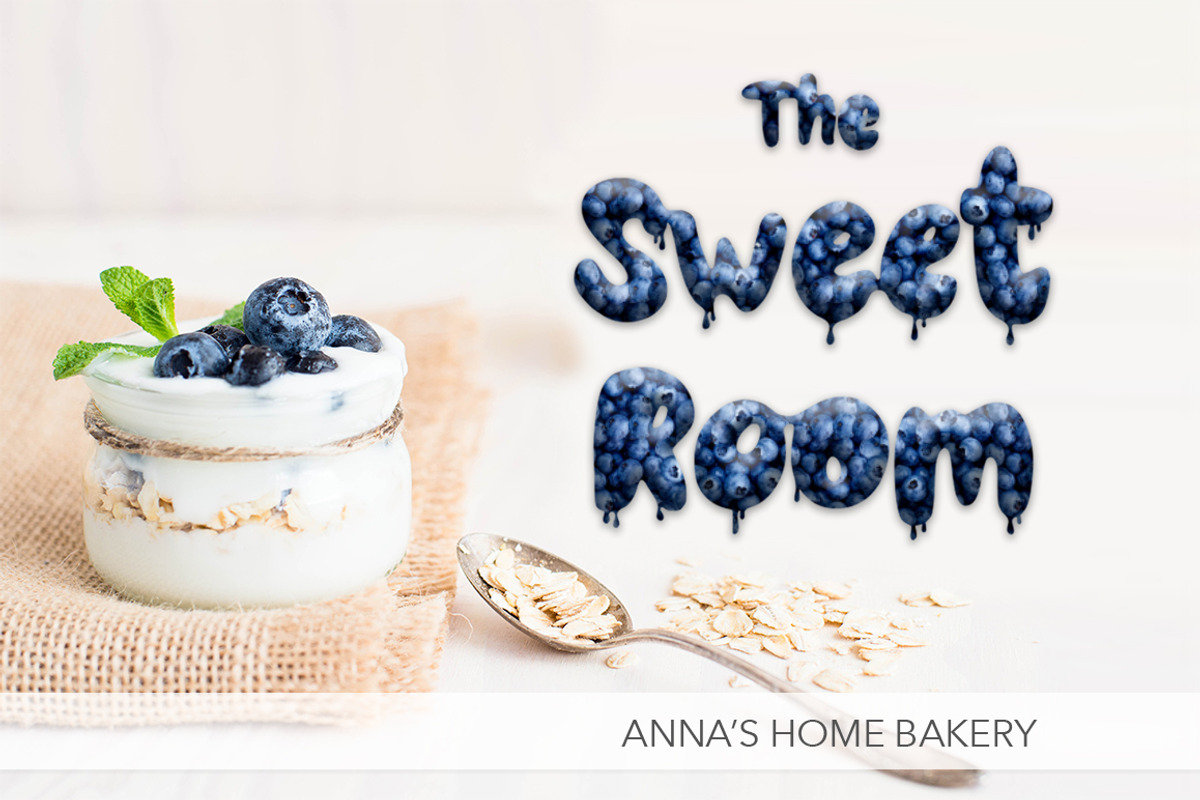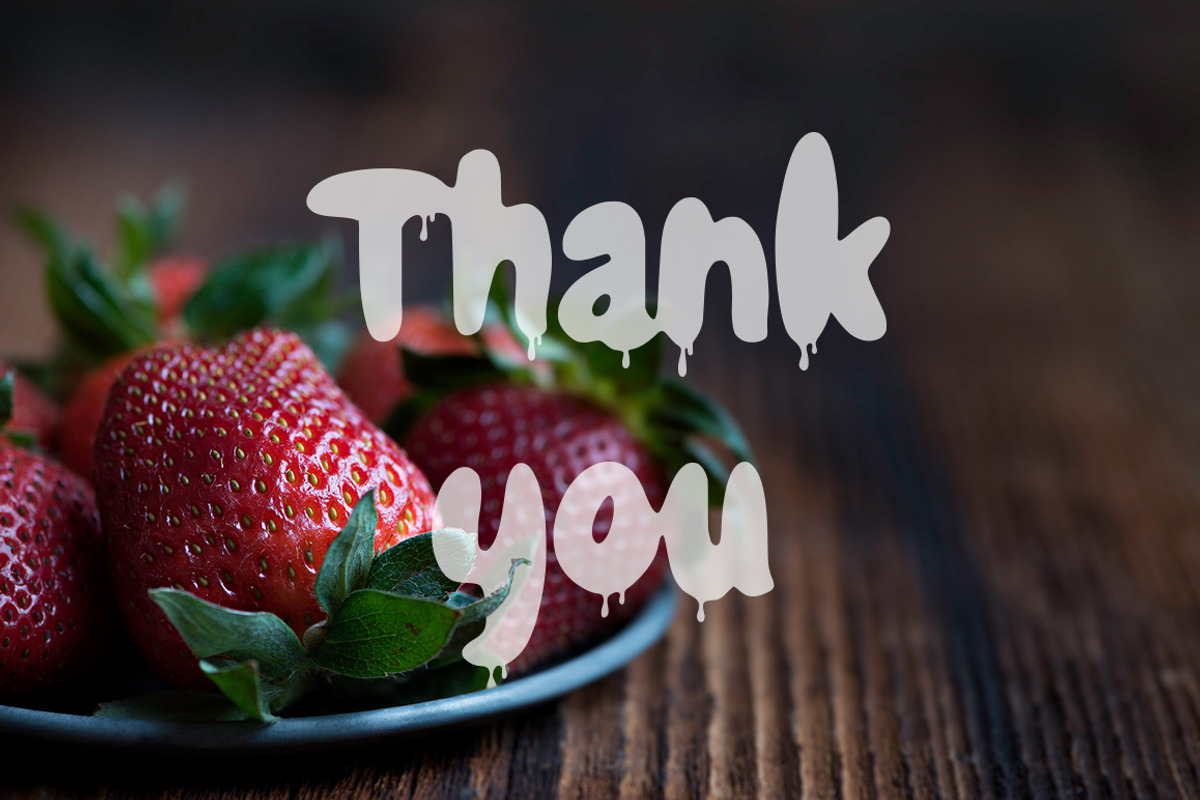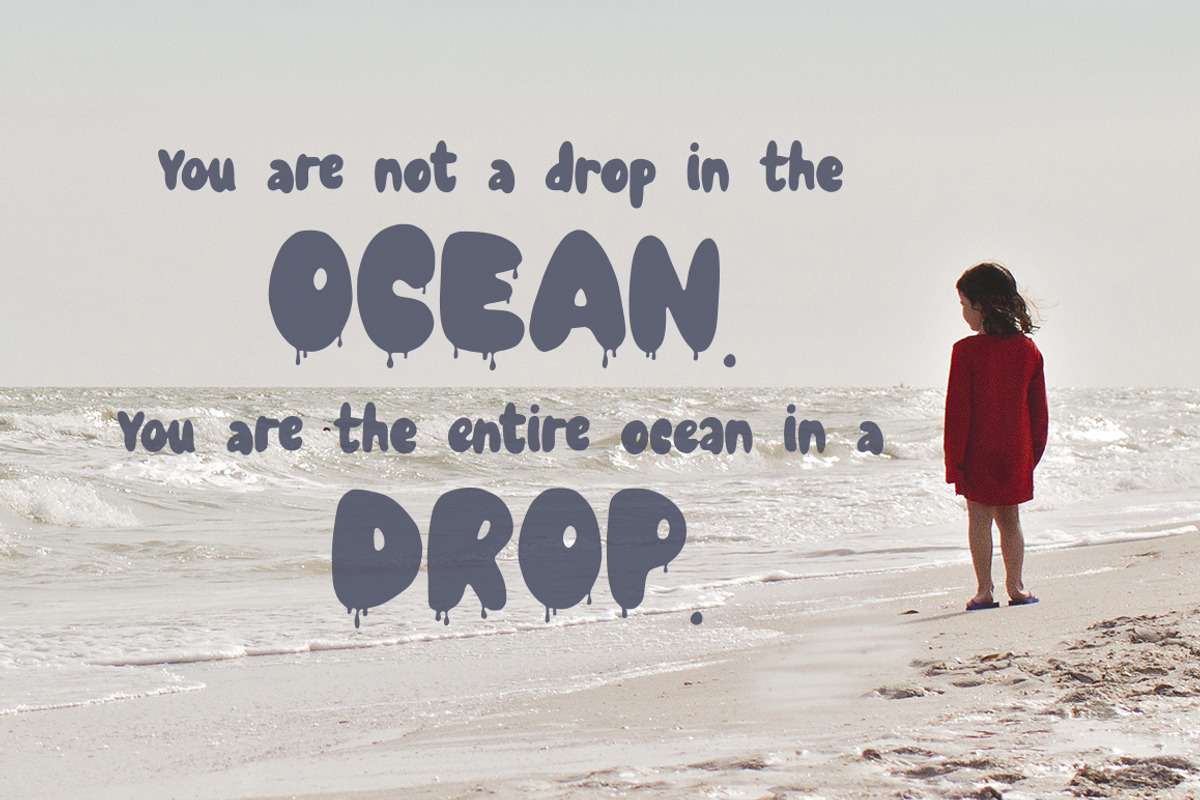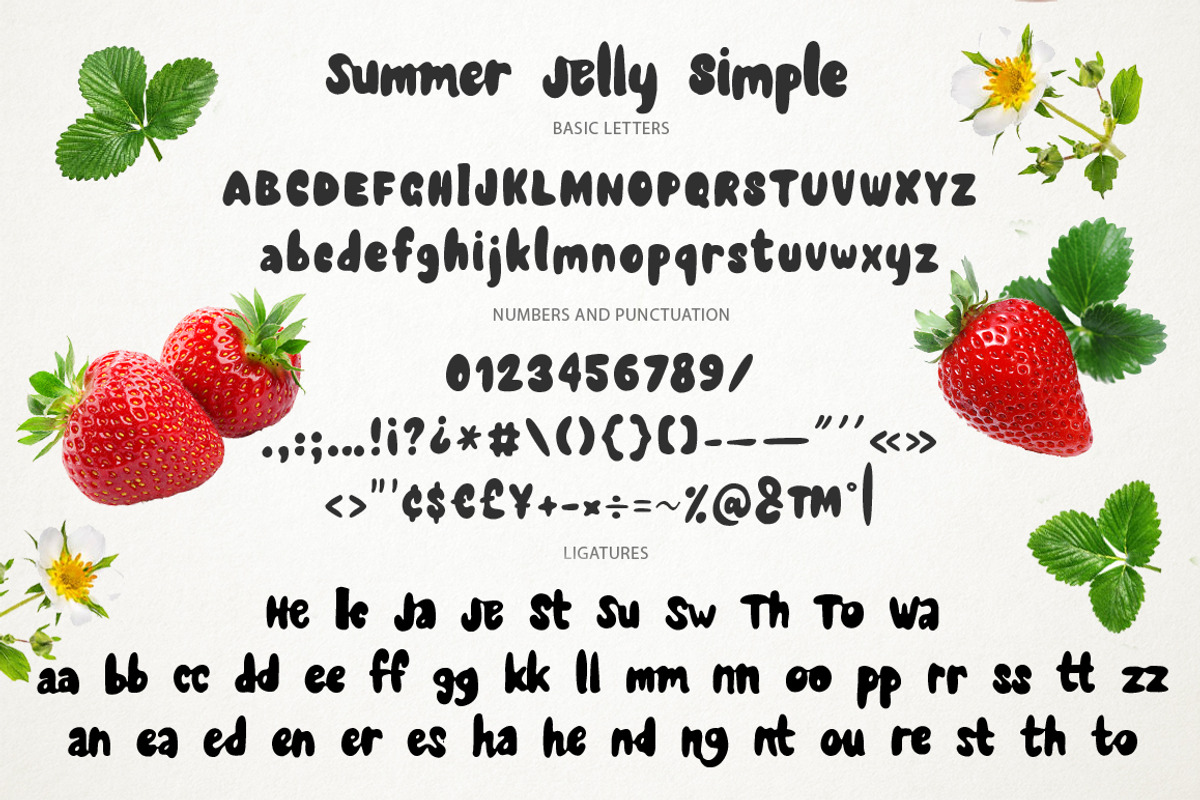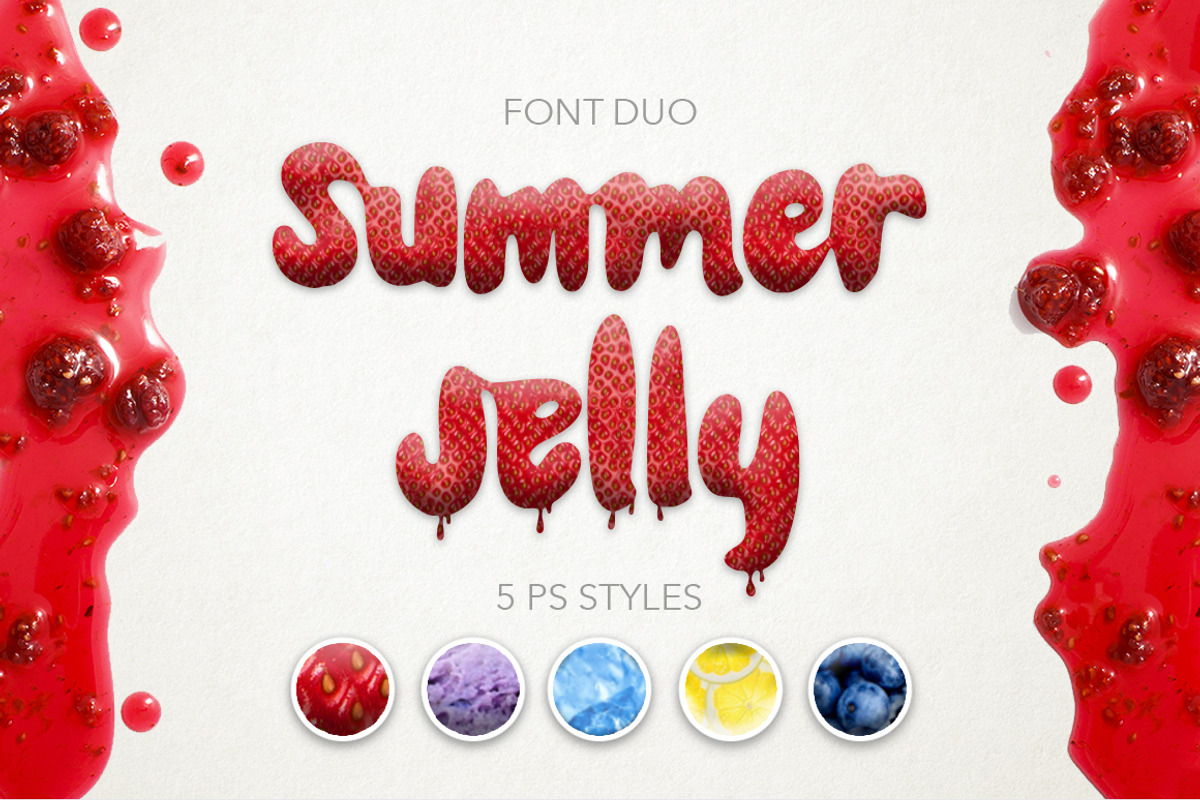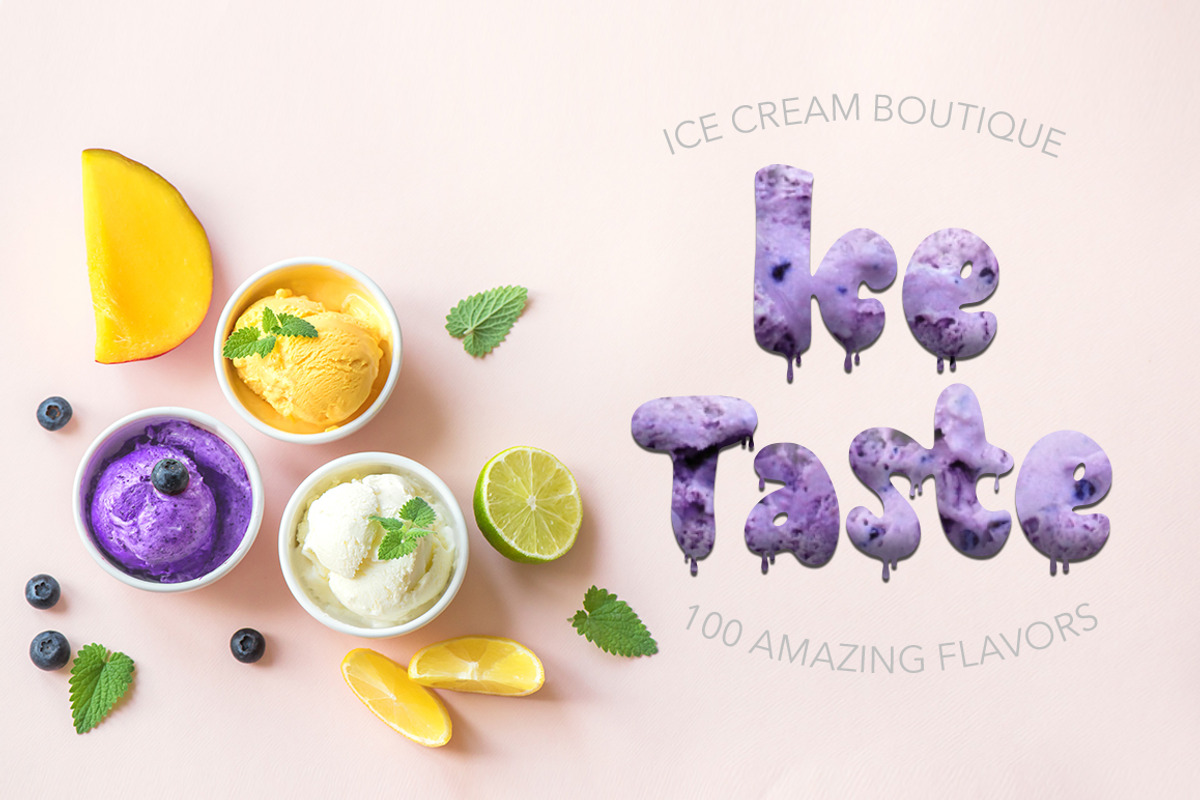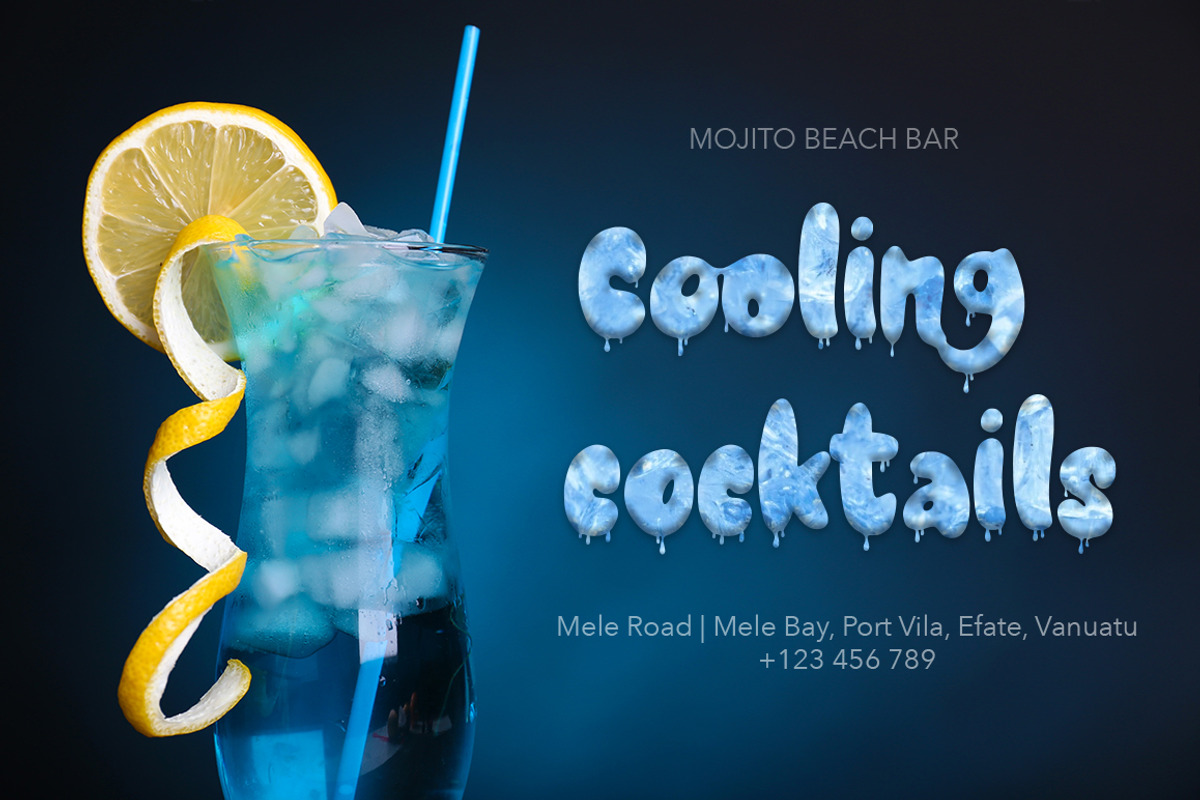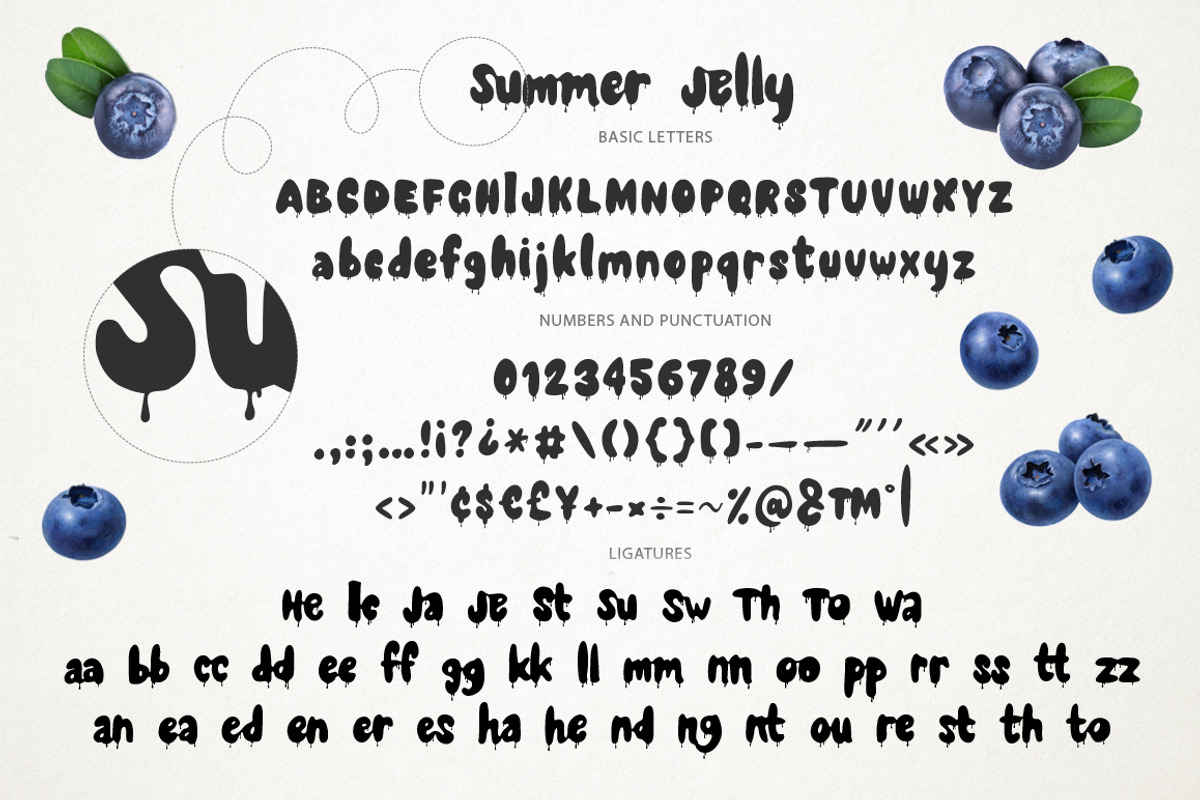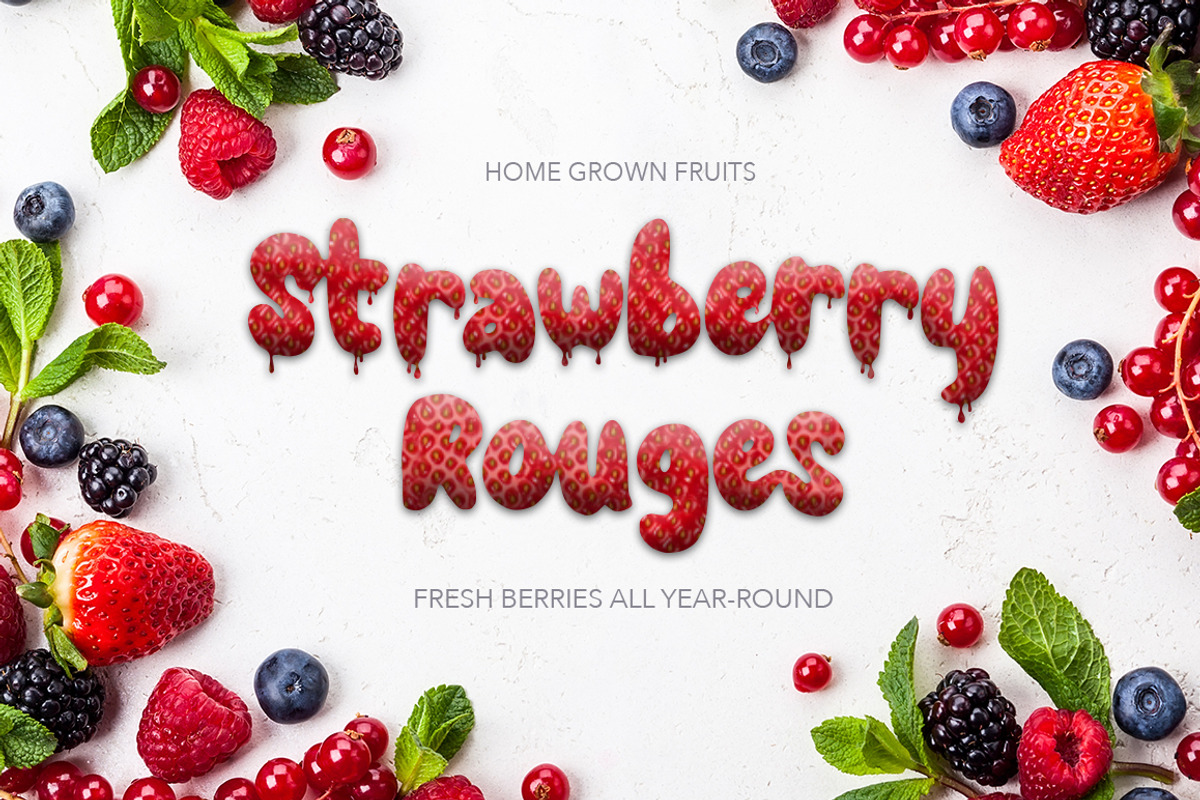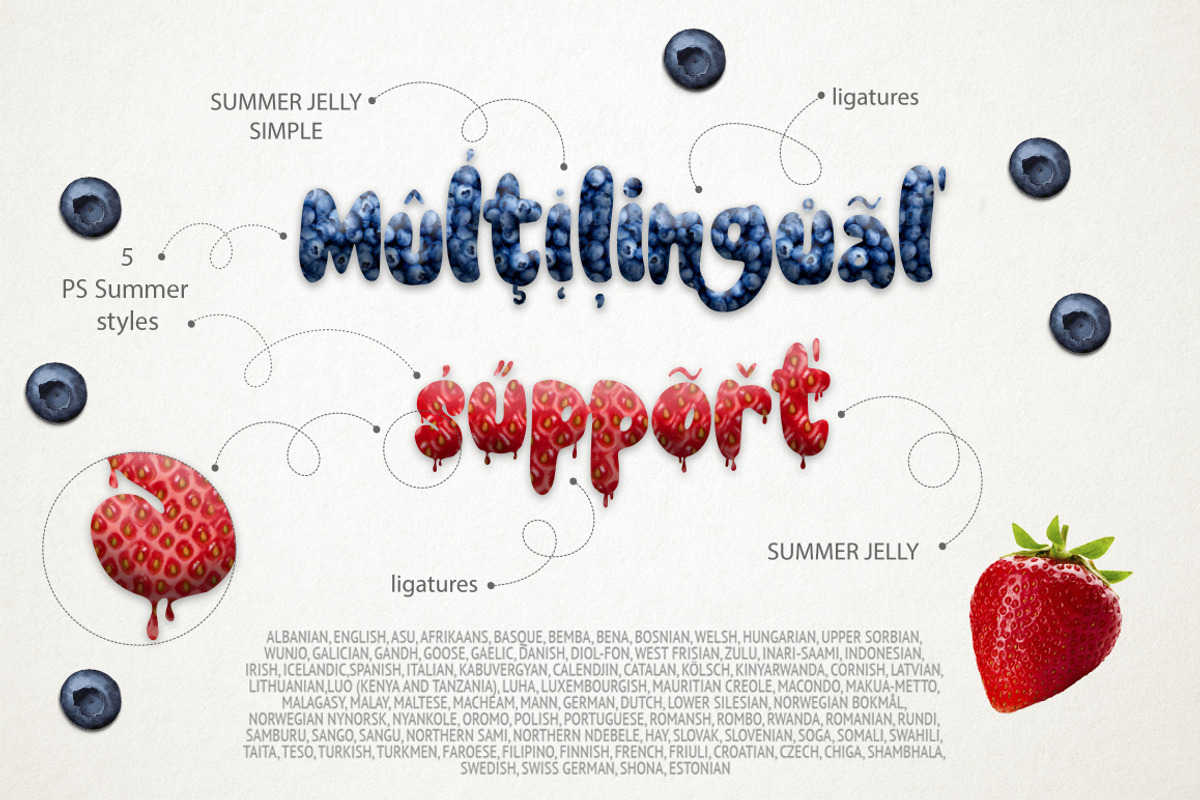
Summer Jelly is a beautiful super cute duo font with an unique bouncy character.
This font is perfect for any summer designs, posters, greeting cards, t-shits, branding materials, quotes and any other amazing projects you are working on.
Both Summer Jelly fonts come with lot of ligatures - so it’s easy to imitate lettering. Summer Jelly letters have jelly dripping effect, Summer Jelly Simple letters come without these drops.
You will also receive 5 cute Photoshop styles to make amazing decorative letters in seconds – Strawberry, Blueberry, Ice, Ice cream, Lemonade. It’s very easy to use & create unique amazing summer designs (instructions added).
Fonts include multilingual support. Western European, Central European and South Eastern European languages are included. Please type characters in text box below to check any characters you need.